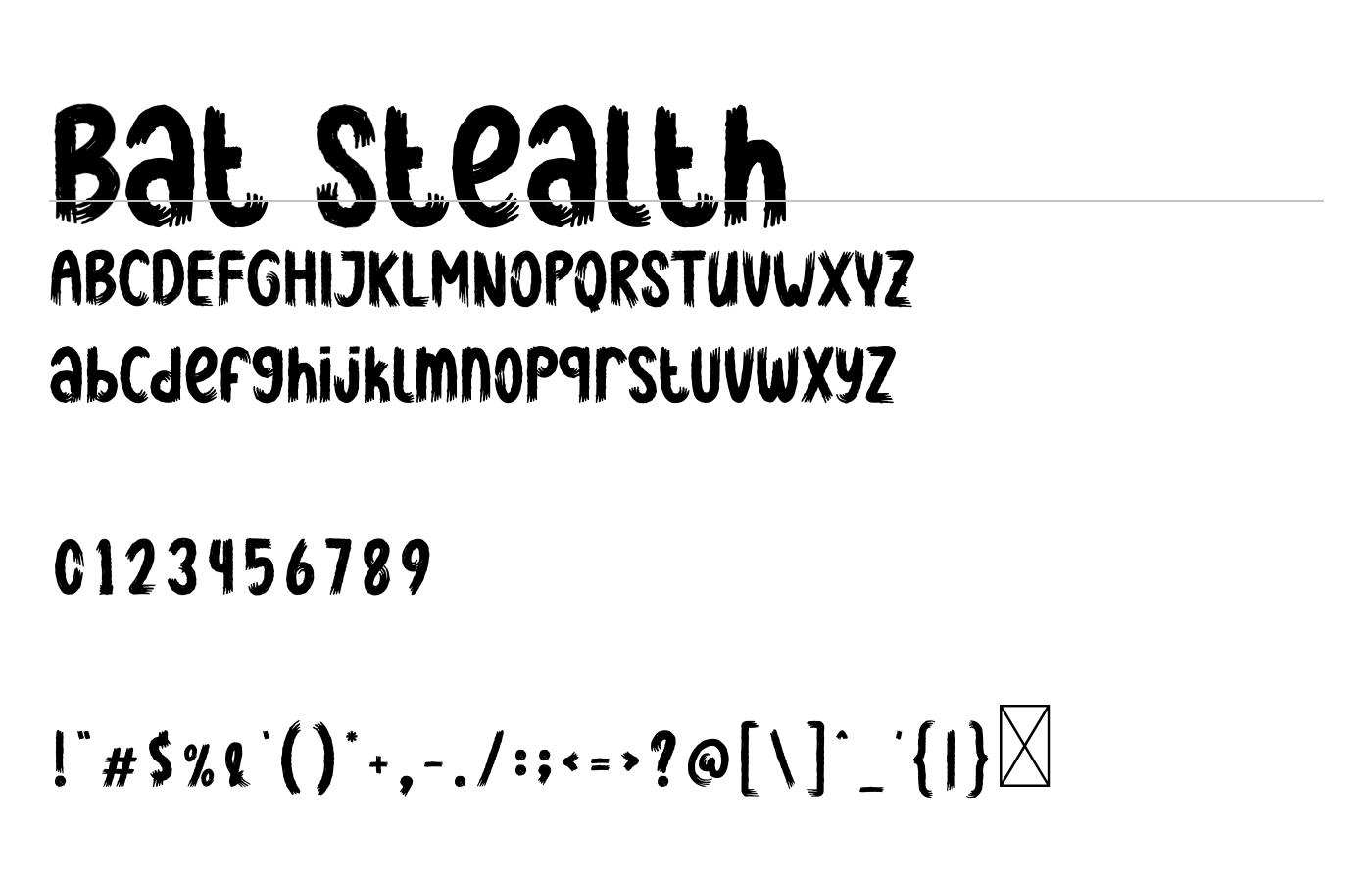
Bat Stealth is a bold, quirky sans serif font with a hand-drawn, brushstroke texture that gives it an edgy and playful character. Its irregular, rough edges and casual letterforms make it perfect for designs that need a fun, creative vibe, such as posters, playful branding, and informal headlines. This font works well where a unique, eye-catching style is desired, adding personality and energy to any project.
Bat Stealth Font